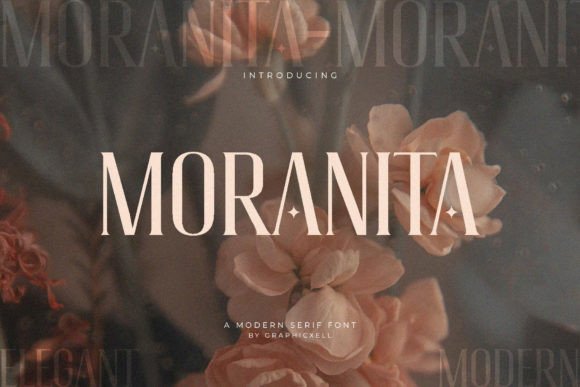
**Moranita Font: The Serif Star for Poster Design Glory**
Introducing Moranita Font, the ultimate serif font that exudes a distinctive and elegant charm. This modern masterpiece is meticulously crafted to elevate your design projects with its captivating style and timeless appeal. Unleash your creativity and make a lasting impression with Moranita, the font that turns ordinary designs into extraordinary expressions.
**Unleash the Power of Serif Sophistication**
Moranita Font belongs to the esteemed serif font family, renowned for its classic beauty and timeless elegance. Its graceful curves and refined lines add an air of sophistication and professionalism to any design. Whether you're crafting captivating posters, alluring advertisements, or eye-catching logos, Moranita is the perfect choice to convey your message with impact and style.
**A Versatile Masterpiece for Endless Design Possibilities**
Moranita Font's versatility knows no bounds. Its carefully crafted characters seamlessly adapt to a myriad of design projects, making it the perfect choice for a wide range of applications. From striking headlines that command attention to elegant body text that invites readers to delve deeper, Moranita effortlessly elevates every design element.
**Ignite Your Creativity with Moranita's Allure**
With Moranita Font, your creativity will soar to new heights. Its unique and classy style sparks inspiration and ignites your imagination. Transform your designs into captivating works of art with Moranita, the font that adds a touch of magic to every project.
**Experience the Moranita Difference Today**
**Moranita Font: Where Elegance Meets Impact**
Moranita Font is more than just a font; it's an experience. Its timeless elegance and captivating style will elevate your designs, leaving your audience spellbound. Whether you're a seasoned designer or just starting your creative journey, Moranita is the perfect companion to unleash your true potential.